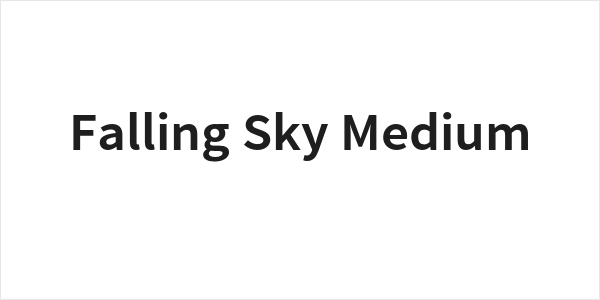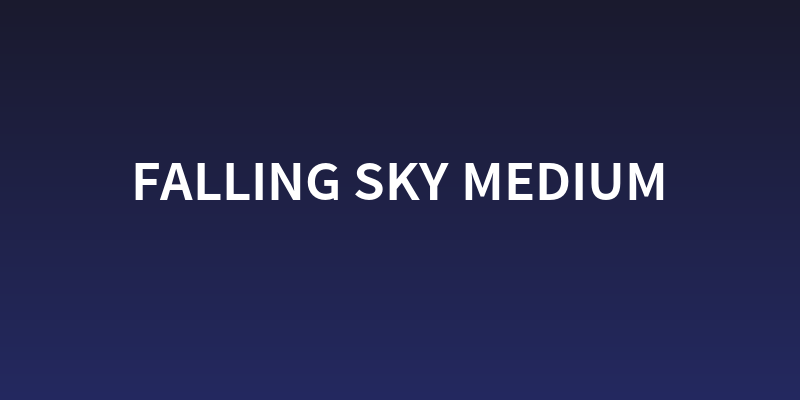
Falling Sky Medium Font
✎ Sans Serif
| Anwendungsfall | Headlines, Body text, Logos |
| Vorgeschlagene Projekte | Ideal for branding, web design, advertising, and editorial projects due to its clarity and modern appeal. |